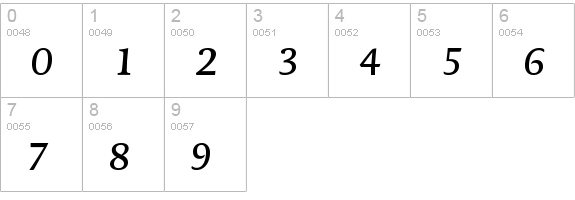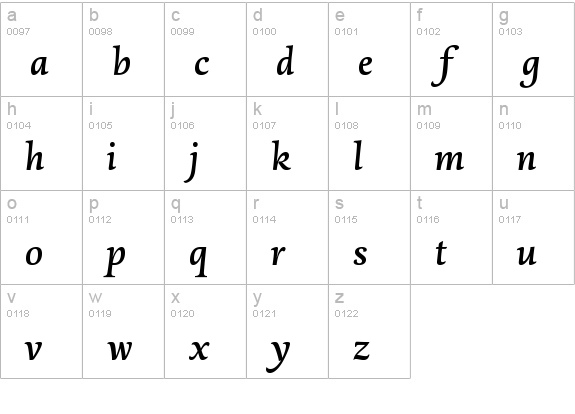
Introducing DTLDorianT-MediumItalic, a versatile and elegant font that exudes sophistication and charm. This font strikes the perfect balance between modernity and classic appeal, making it suitable for a wide range of design projects. Its medium weight and italic style add a touch of flair and elegance to any text, making it ideal for headlines, titles, and branding materials. DTLDorianT-MediumItalic is not only visually appealing but also incredibly versatile, making it a great choice for both print and digital designs. Whether you're working on a website, a poster, a brochure, or any other creative project, this font will elevate your typography game to the next level. The best part? DTLDorianT-MediumItalic is available for free download at FontsMarket.com. So, if you're looking to add a touch of sophistication to your designs without breaking the bank, look no further than this exquisite font. Download it today and see how it transforms your projects into works of art.